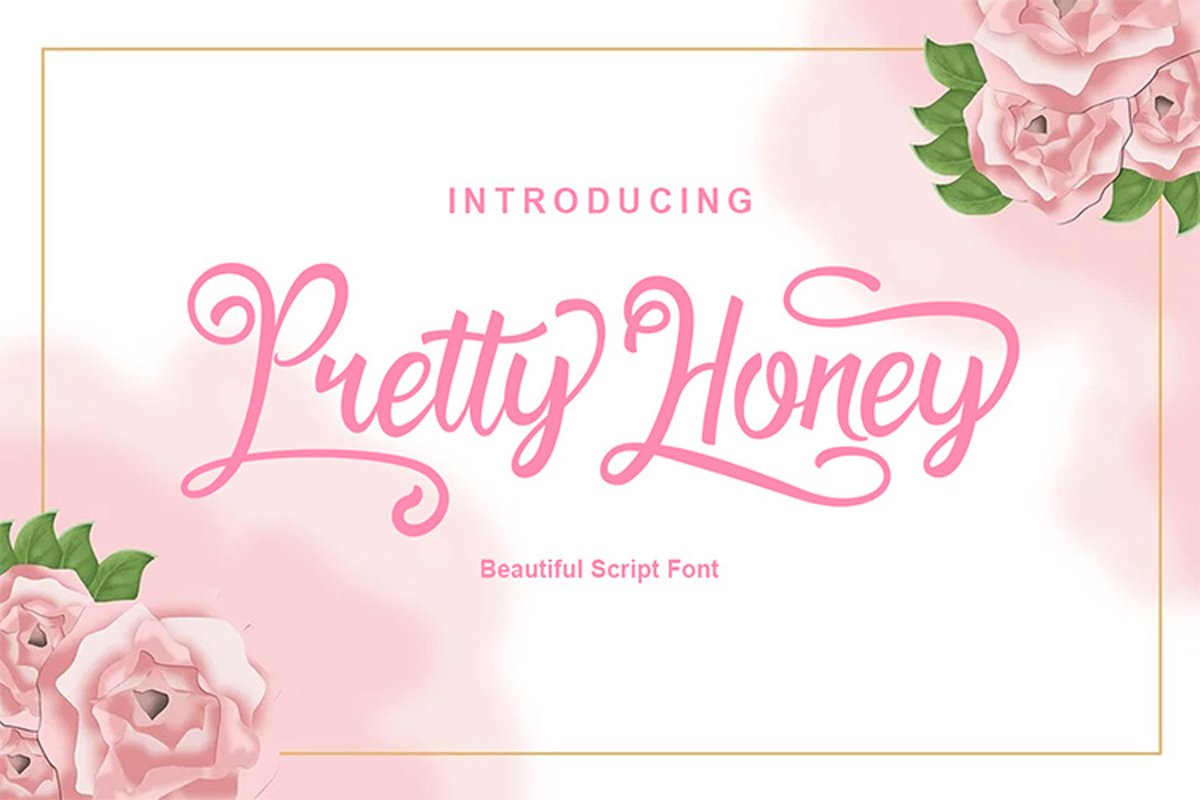
Pretty Honey
Introducing Pretty Honey Script Fonts come with smooth curves, natural connections and have more than 500 characters. suitable for your beautiful and feminist designs, such as wedding invitations, wedding shirts, logos.
alternative for uppercase and lowercase letters, more than five stylistic sets for uppercase, eight stylistic sets for lowercase, standard ligature, and kerning.